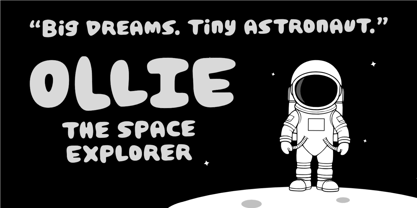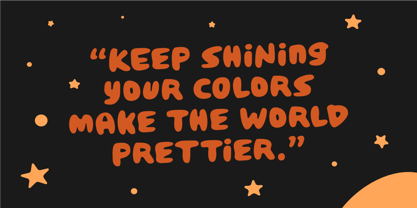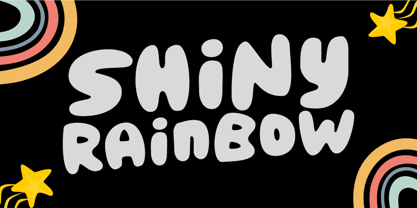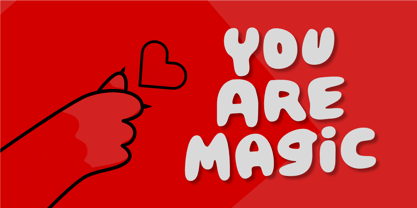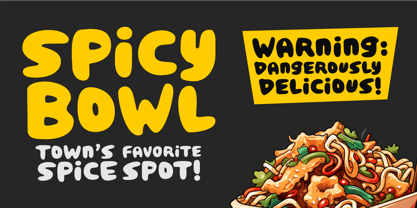
Shiny Rainbow
The Shiny Rainbow Font Family was designed by Aldy Sidik and published by Epiclinez. Shiny Rainbow contains 1 styles. More about this family
Shiny Rainbow Font is a bright, cheerful, and playful display typeface that brings color, joy, and positivity to every design! Inspired by rainbows, giggles, and sunshine smiles, this font is perfect for projects that need a touch of happiness and sparkle. Each letter feels fun, friendly, and full of life — ideal for children’s books, cute branding, posters, product packaging, greeting cards, and more. Whether you’re creating a candy logo, a cheerful quote poster, or a dreamy YouTube title, Shiny Rainbow adds that magical pop of fun that instantly catches the eye. Its soft curves, bubbly shapes, and joyful energy make it the perfect typeface for designers who love to play with color and creativity. Shine bright, stay happy, and let Shiny Rainbow Font make your words glow with color and imagination!